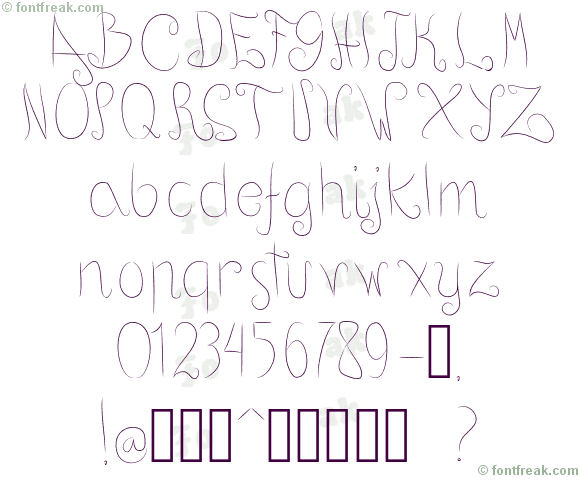
Positive-thinking
Positive thinking
About Positive-thinking
The "Positive-thinking" font by Manuel Ramos is a charming handwritten typeface that captures the essence of optimism and creativity. As a decorative font, it features playful letterforms characterized by light, flowing strokes that create a friendly and approachable aesthetic. The stroke weight is consistent, with gentle curves that lend an organic feel, while the spacing between letters is well-balanced, ensuring readability without sacrificing its whimsical charm. The unique character of this font is enhanced by subtle decorative elements, such as the loops and swirls in certain letters, which contribute to its uplifting vibe.
This font is ideal for a variety of creative projects. It excels in applications such as wedding invitations, where its warm and inviting nature can set the perfect tone for a celebration. Additionally, it works wonderfully for greeting cards, adding a personal touch that resonates with recipients. The "Positive-thinking" font is also suitable for children's book covers, as its playful design captures the imagination of young readers. Small business owners can use it effectively in branding materials, such as flyers and social media posts, to convey a friendly and approachable image. Content creators will find it useful for blog titles and promotional graphics, where an element of positivity is desired.
Targeted towards graphic designers, small business owners, and content creators, the "Positive-thinking" font free download offers a versatile solution for those seeking a unique and engaging typeface. Its cheerful design sets it apart from more conventional fonts, making it an excellent choice for anyone looking to infuse their work with a sense of joy and creativity. In a world where design can sometimes feel overly serious, this font stands out as a beacon of positivity, encouraging creativity and connection through its distinctive style.